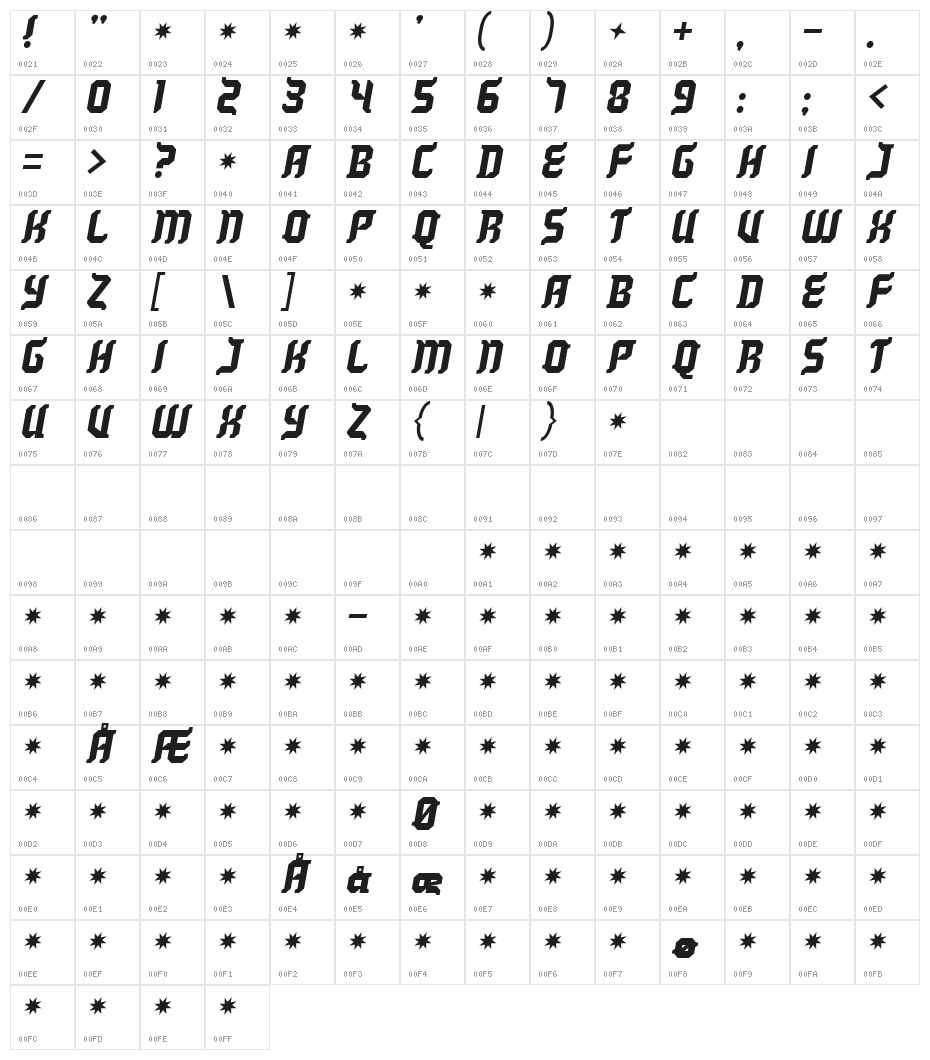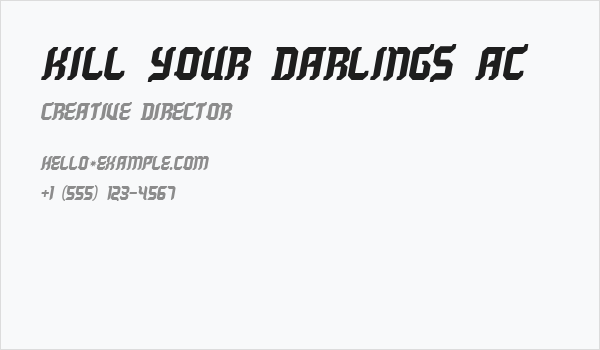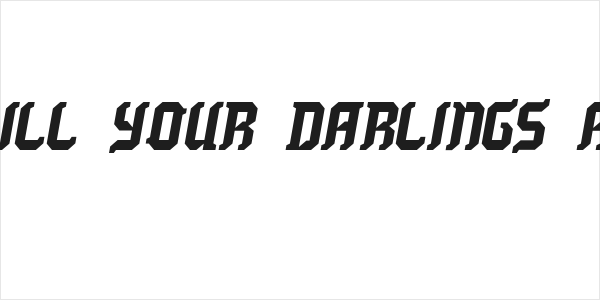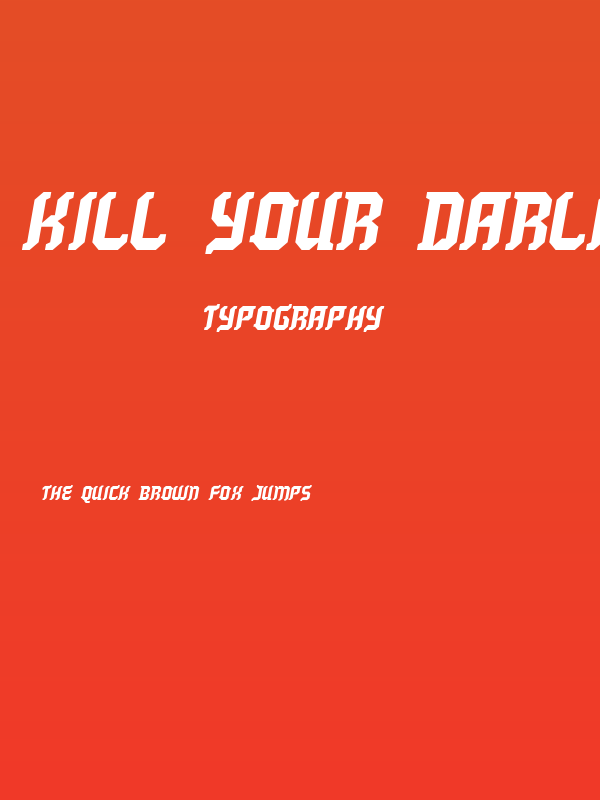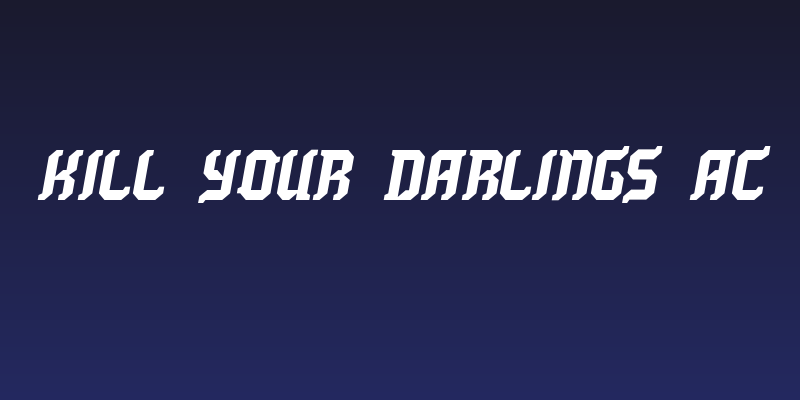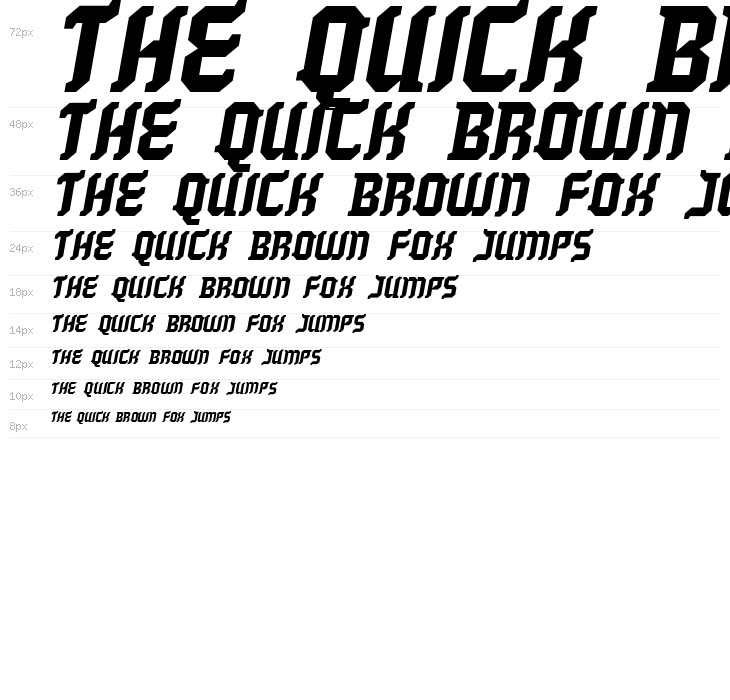
Kill your darlings AC Font
Kill your darlings AC Description
This font exhibits a bold and angular design, characterized by sharp edges and a dynamic slant that conveys a sense of movement and energy. The uppercase and lowercase letters maintain a consistent style, with each character featuring a distinct geometric form. The numbers and special characters are crafted with the same attention to detail, ensuring a cohesive appearance across all elements. The font's strong presence makes it suitable for impactful designs, where a modern and assertive look is desired.
Proposed ProjectsIdeal for sports branding, action movie posters, and dynamic logo designs.